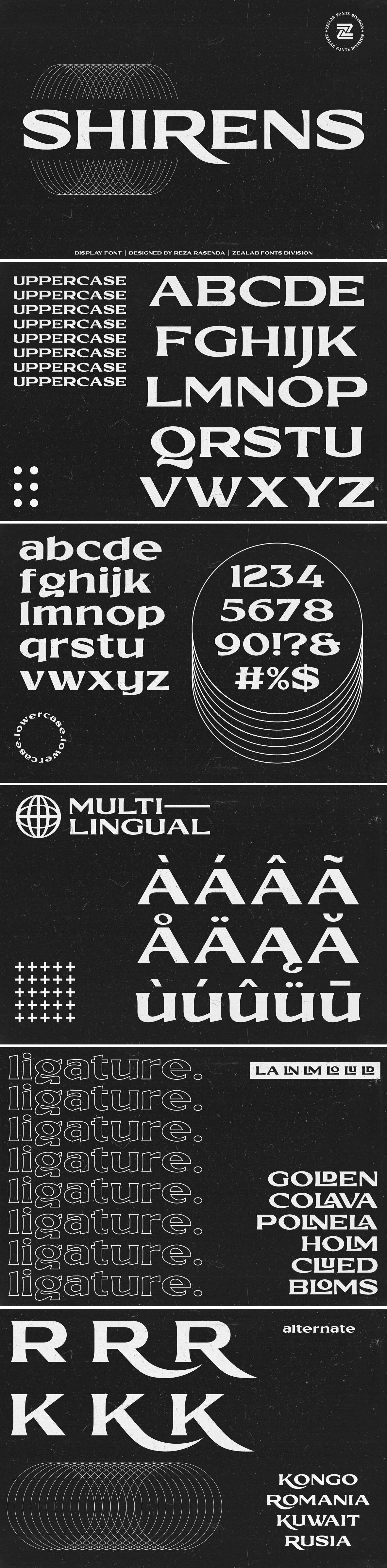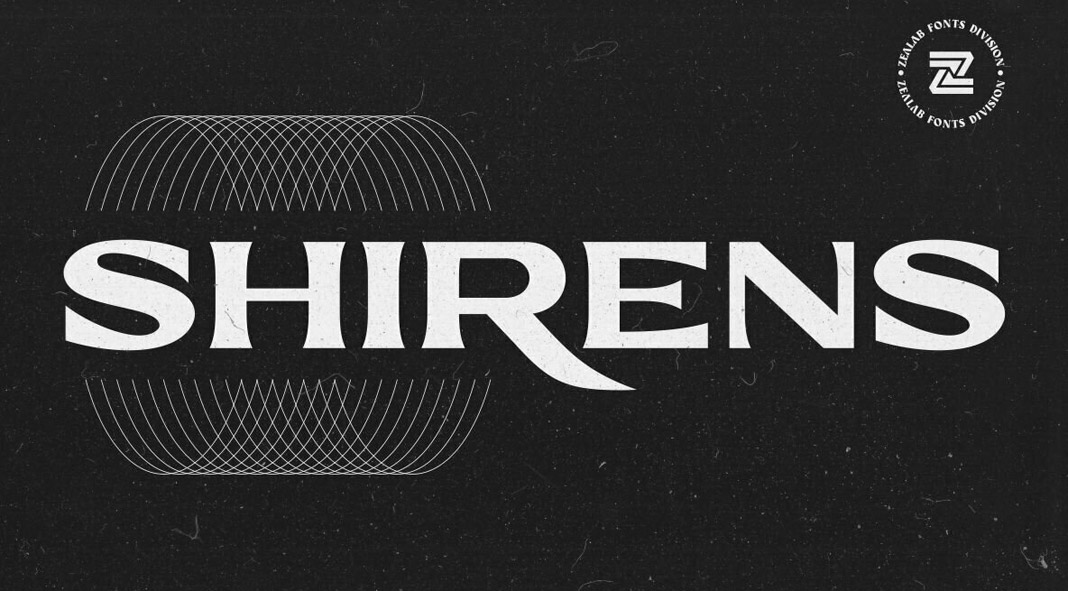
Shirens, a font inspired by the lettering styles of the emo, metal, and hardcore music scenes.
Designed by Reza Rasenda, Shirens is a font that draws inspiration from the eye-catching lettering styles of the emo, metal, and hardcore music scenes. It is equipped with uppercase and lowercase characters as well as ligatures and alternate styles. In addition, the character set of the Shirens font supports multiple languages.
You can use this display typeface for band wordmarks, album covers, video titles, stickers, clothing, badges, banners, flyers, just to name a few. For further information, just click on one of the following links.